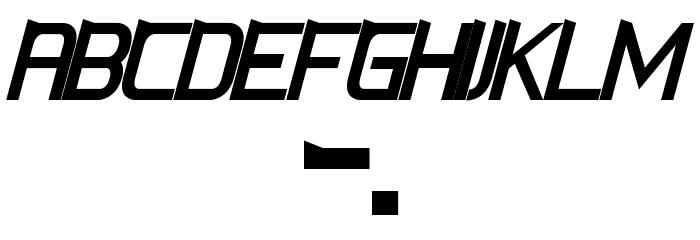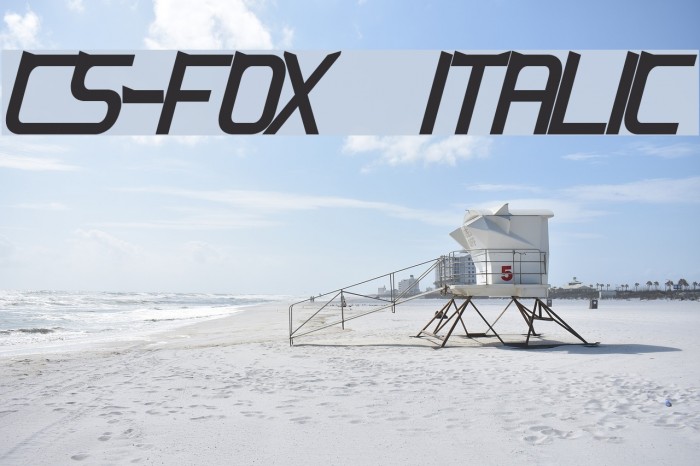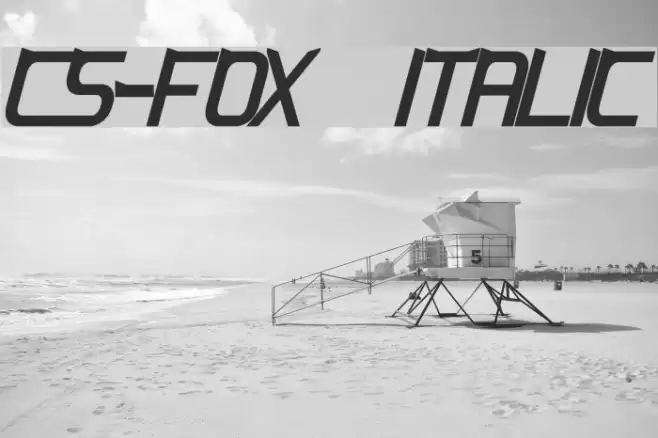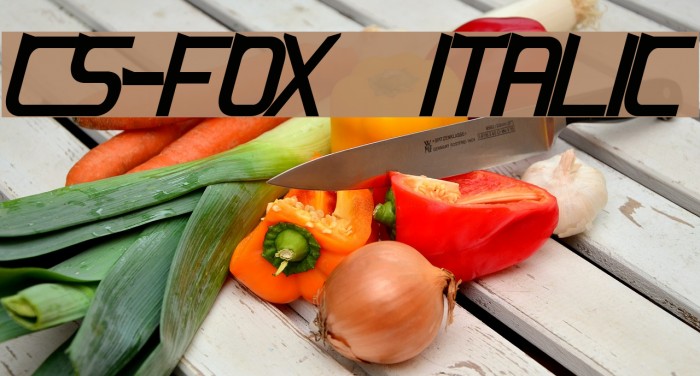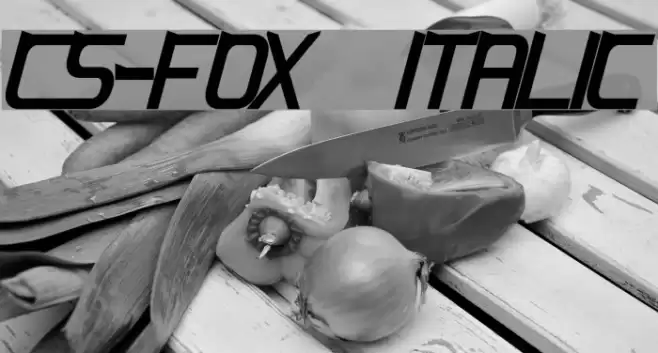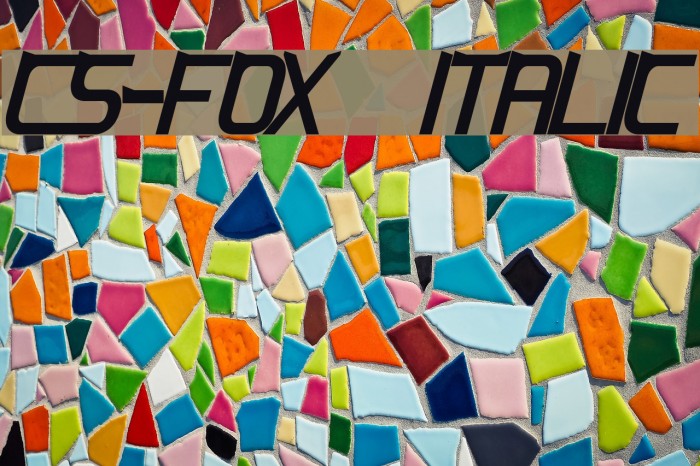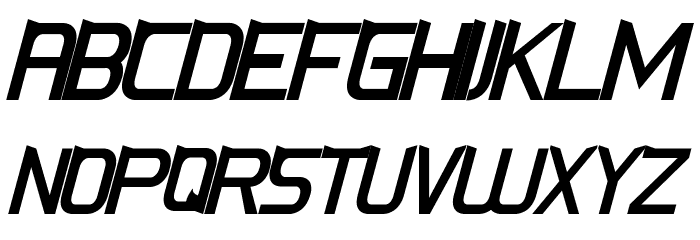
CS-Fox Italic Font
| Anwendungsfall | Logos, Headlines, Branding |
| Vorgeschlagene Projekte | Ideal for branding, sports team logos, automotive designs, and dynamic advertising. |